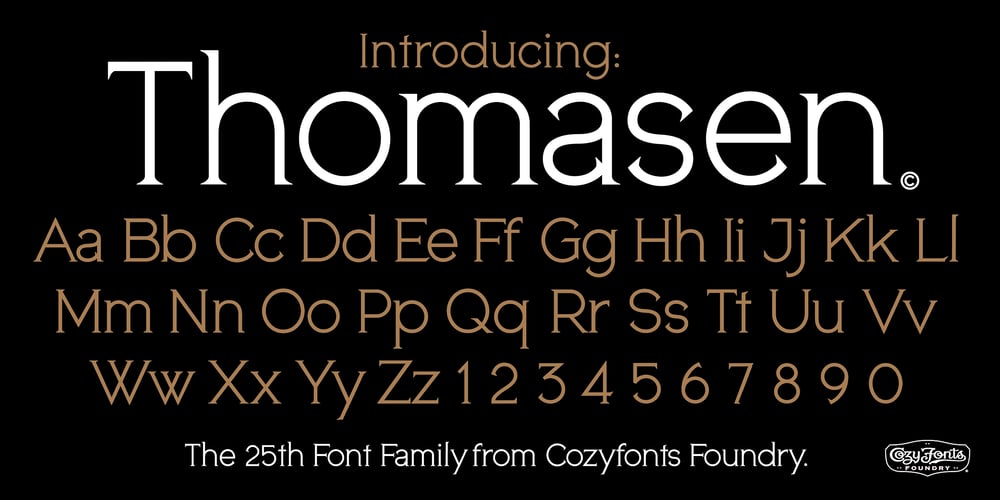
Thomasen Font Family was designed by Tom Nikosey and published by CozyFonts. Thomasen contains 4 styles and family package options. Introducing the ‘Thomasen Font Family’! This is my 25th font family from my Cozyfonts Foundry. I began creating fonts, actually during my long career as a graphic designer, lettering artist, and typographic illustrator that began shortly after graduating from Pratt Institute in 1972.I’ve been in pursuit of creating an even-weighted font family that was legible, clean, and beautifully balanced and would feel timeless. My first manifestation was the CF-Nixt font family which has been well received. This Thomasen Font Family has taken its complexion from CF-Nixt yet with a pointed serif finish. There are 4 styles in the family, as of its release, and each has its own personality. I’m hoping users see the classic approach and typographic balance and respect that Thomasen commands. I urge them to use it and not be limited by its applications. Have fun and experiment. The even-weighted glyphs and matching serifs work well.